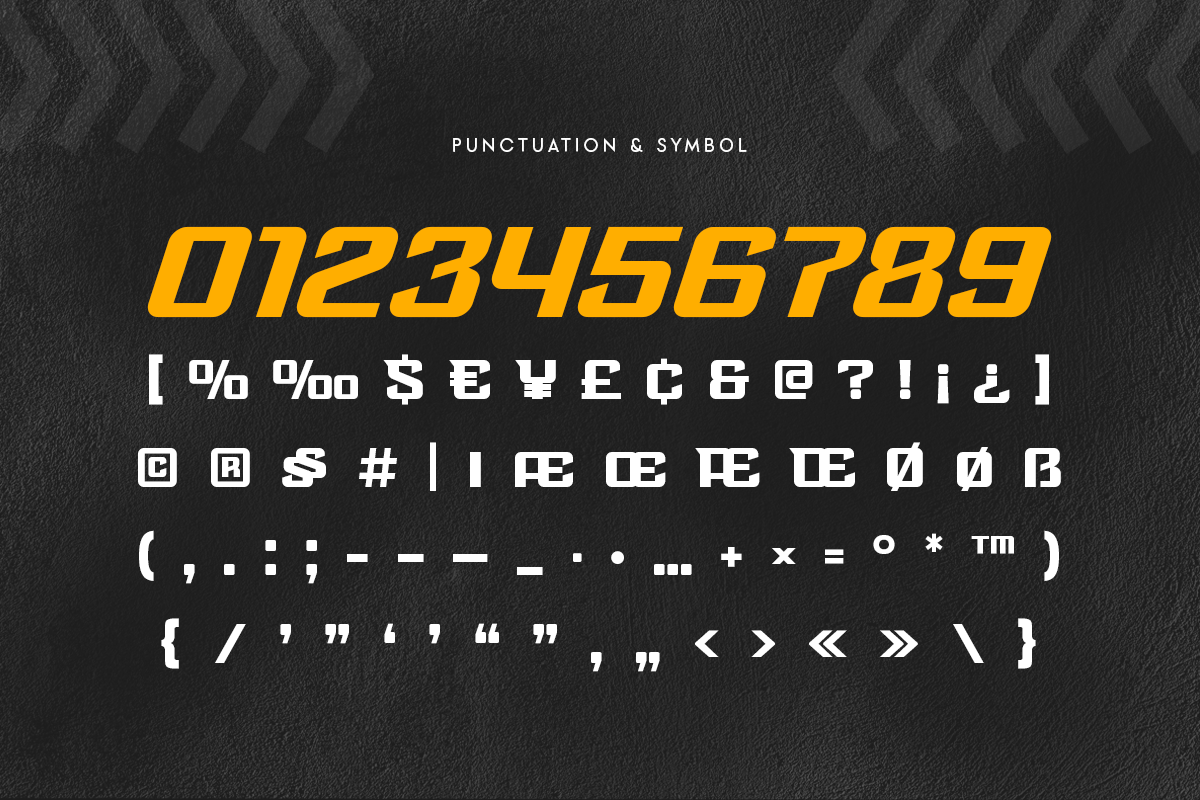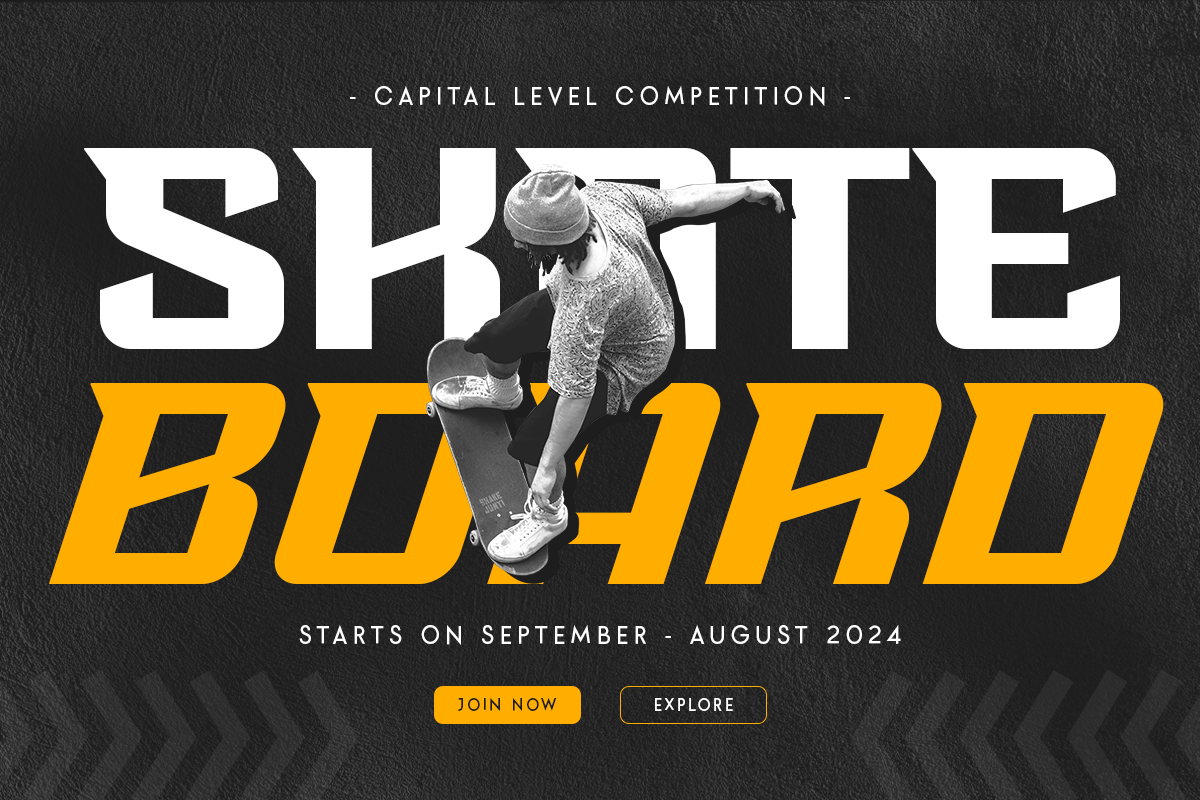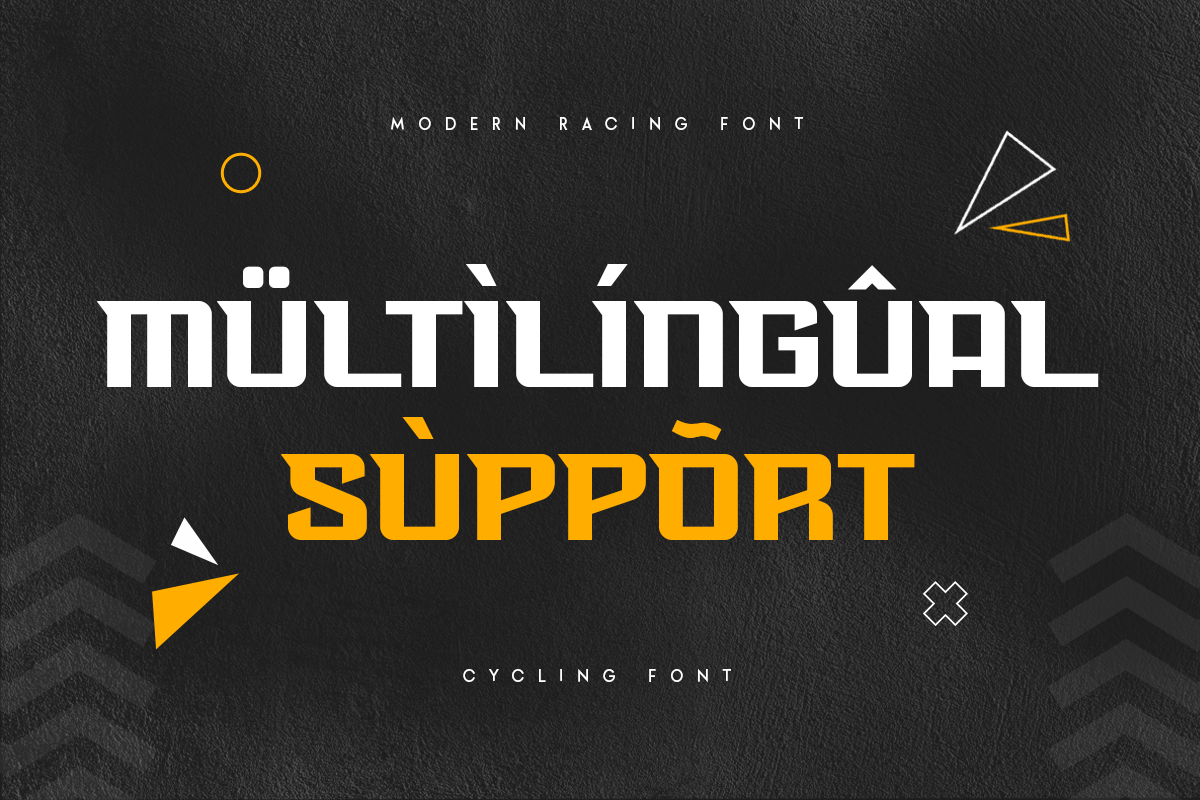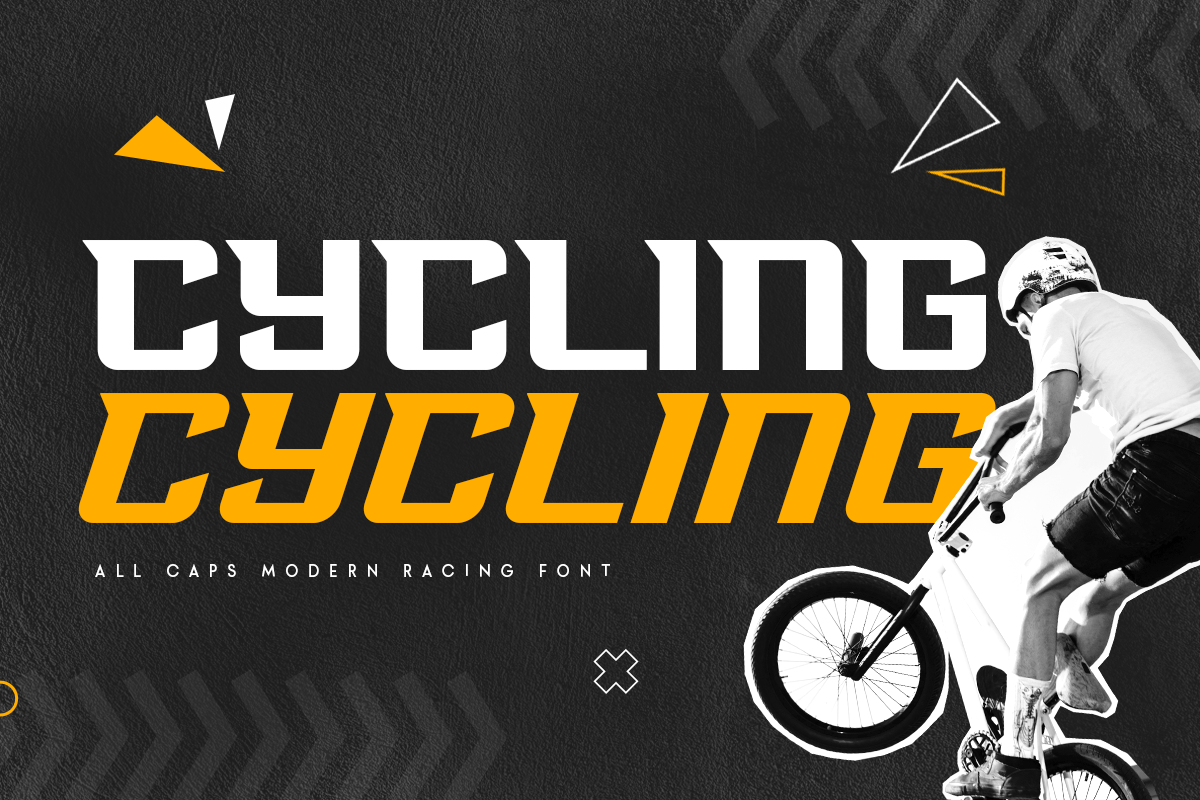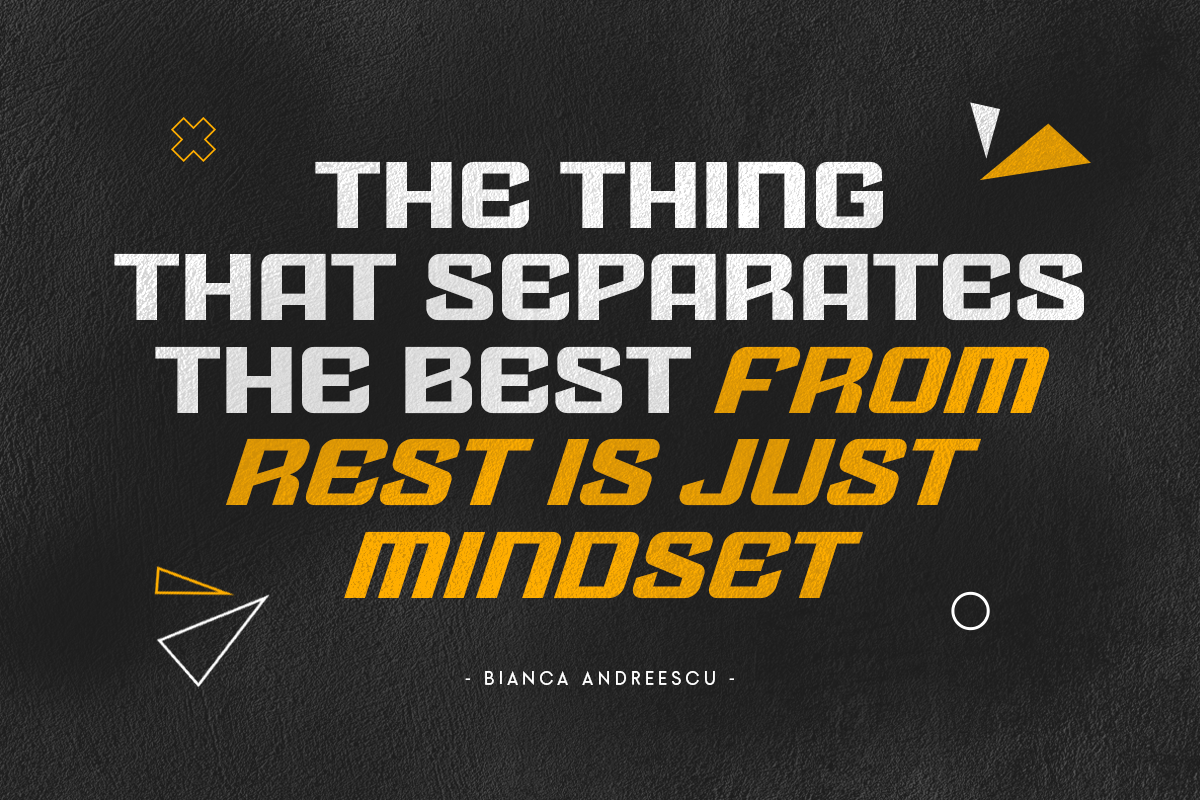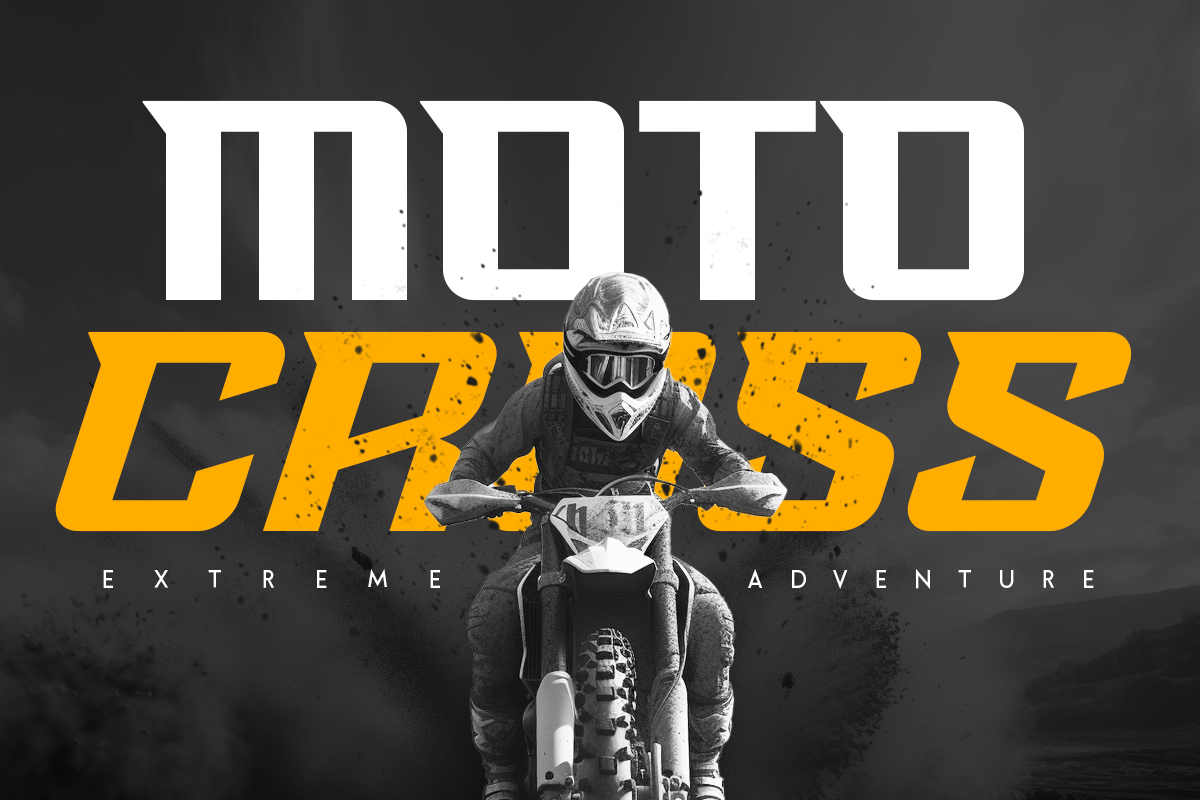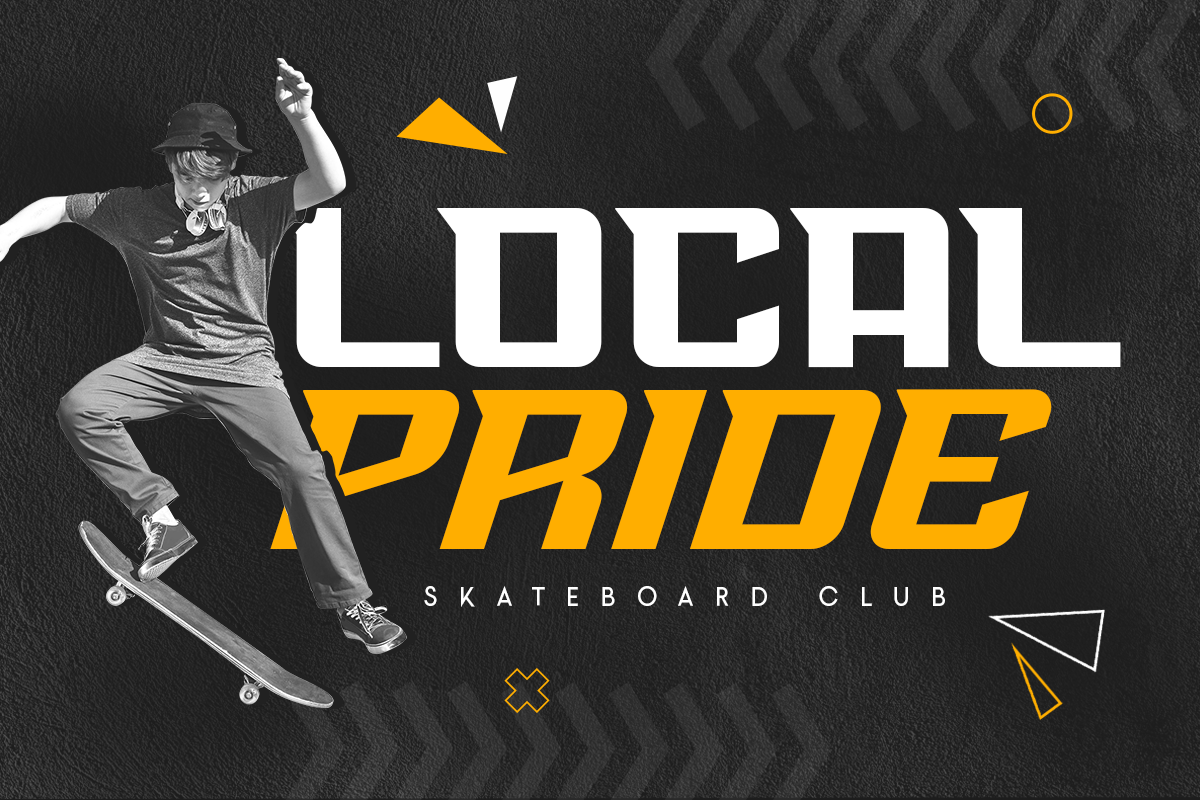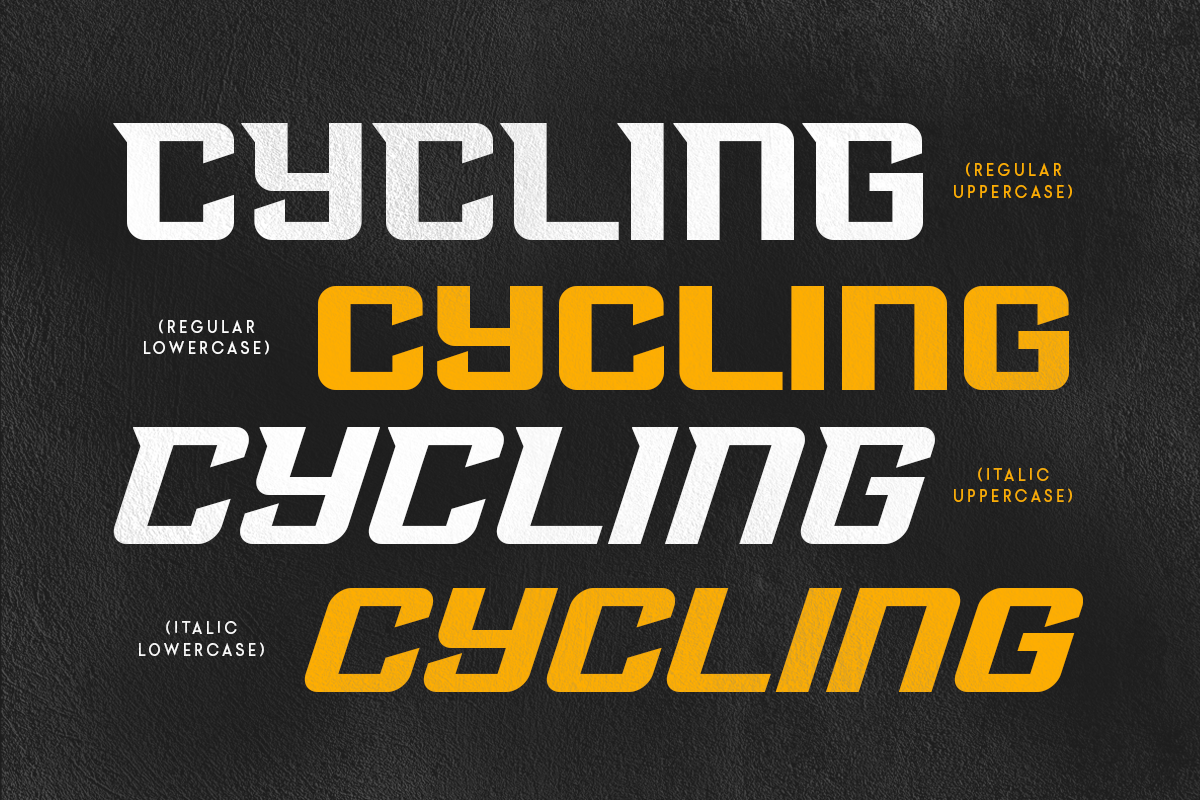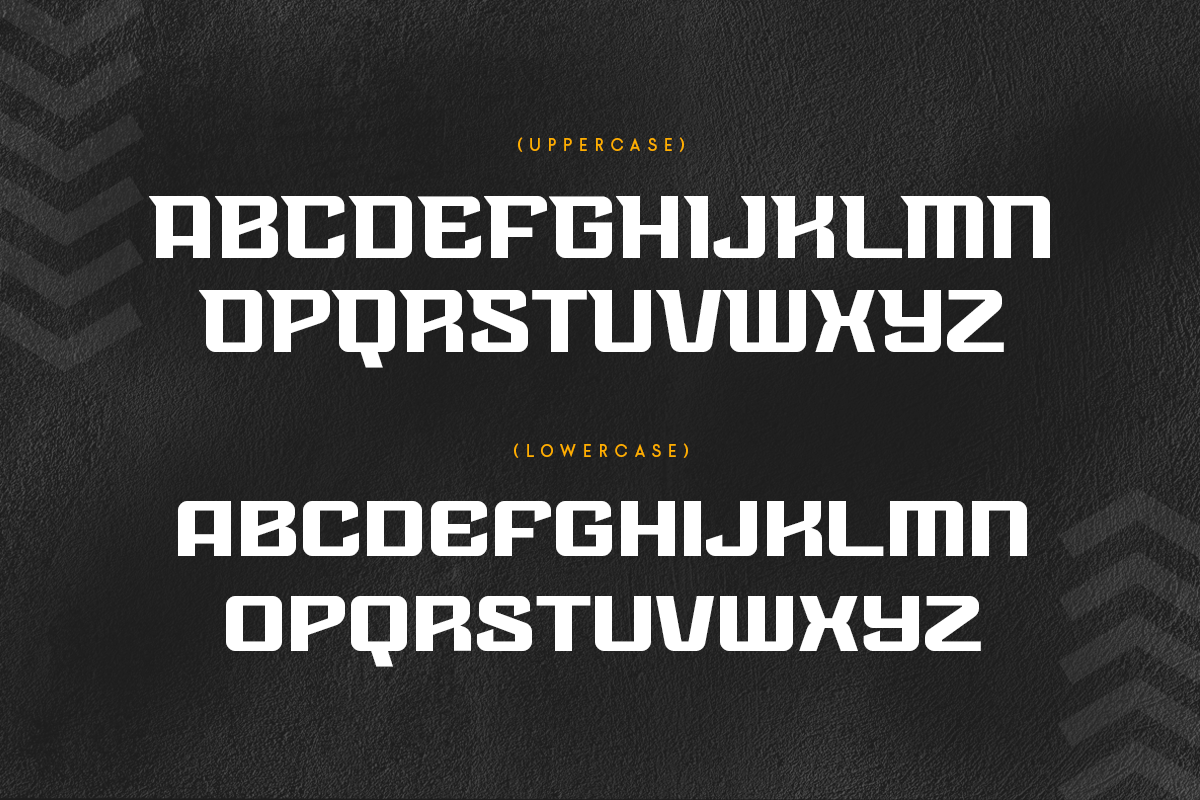
Cycling - Modern racing font
Cycling, a Sport Racing Car Font that created special for Branding, Title and more stand out typography for sport and action. It's so perfect to add your style and headline overview for sport, technology, actions, and fighting theme. And specially for this font, we crafted for bold action style and modern feels so enjoy to create any project that will show your main idea out.
Cycling Sport Racing Car Font ready with:
- Regular & Italic (with normal and stylistic alternate) characters prepared to get best results
- Ready with All Uppercase characters